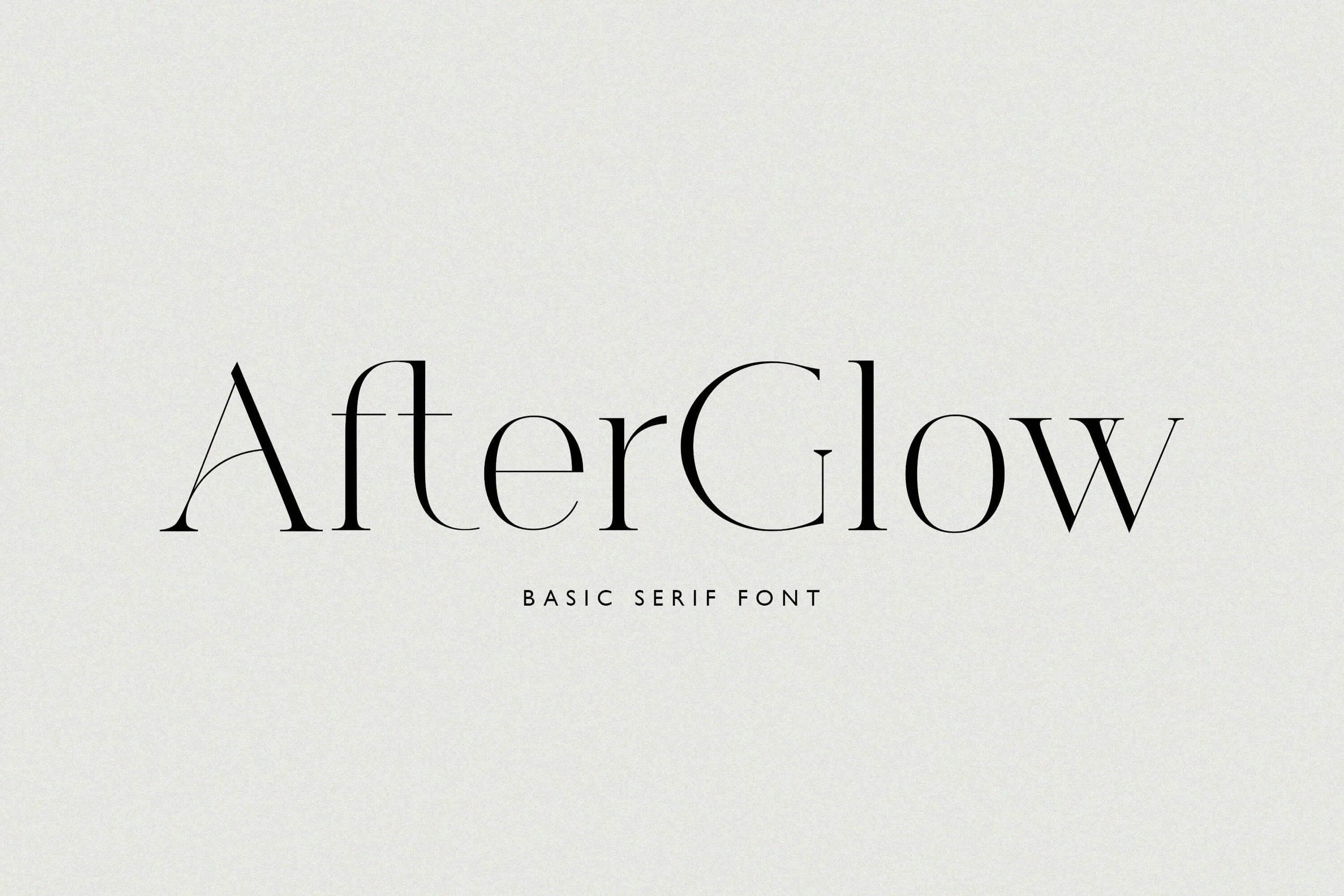
Afterglow is an elegant, sophisticated font perfect for adding classic refinement to various design projects. Its balanced medium weight ensures excellent readability, while its serifs add a decorative touch without cluttering the text. Ideal for luxurious branding or special occasions, Afterglow merges time-honored typeface aesthetics with a contemporary feel, transforming any text into a visual masterpiece.